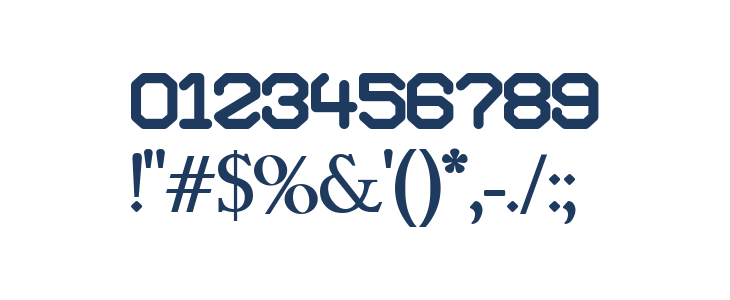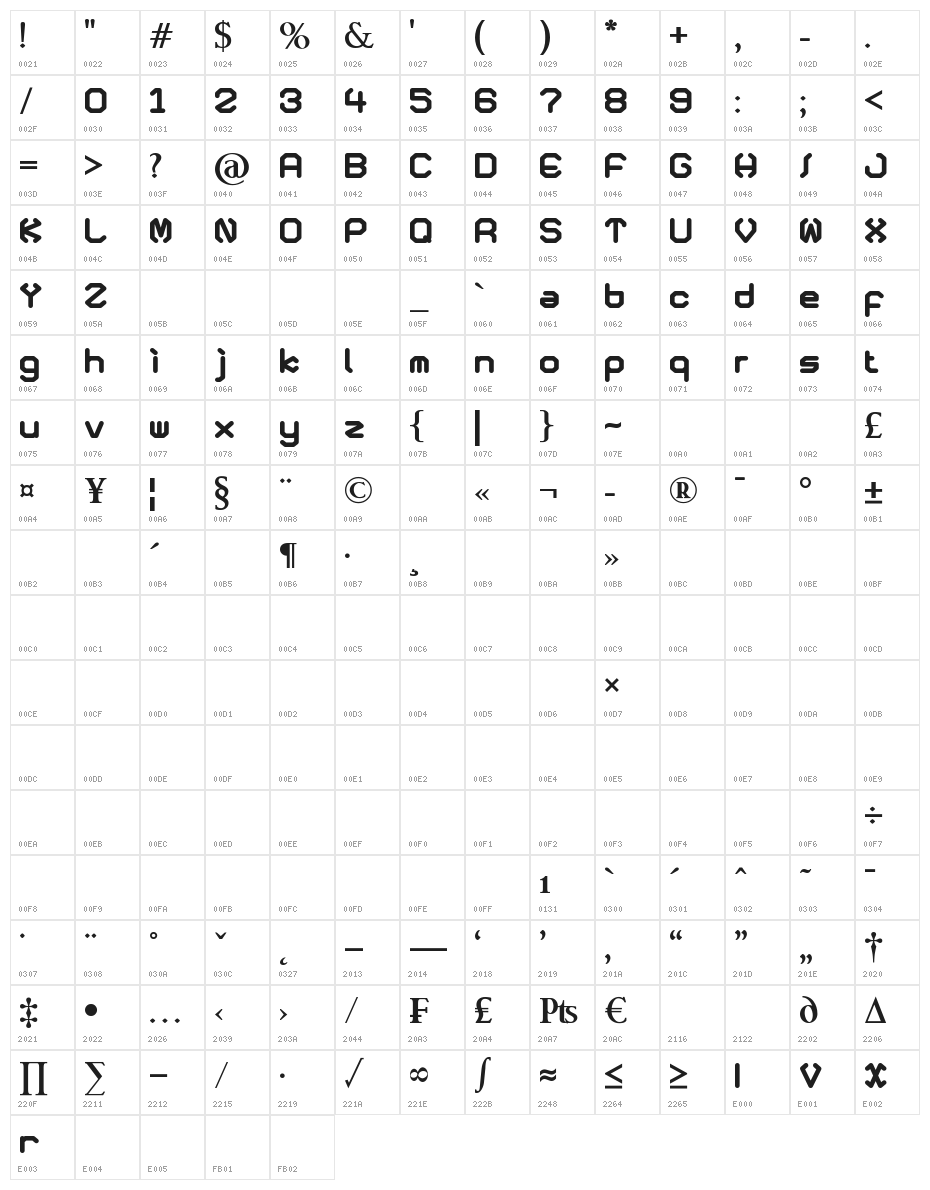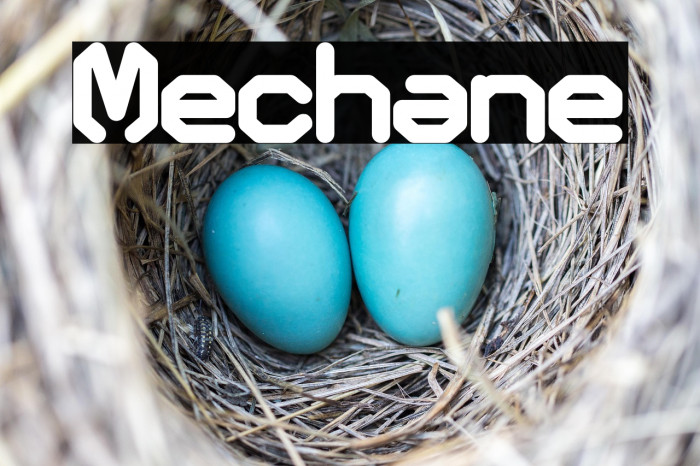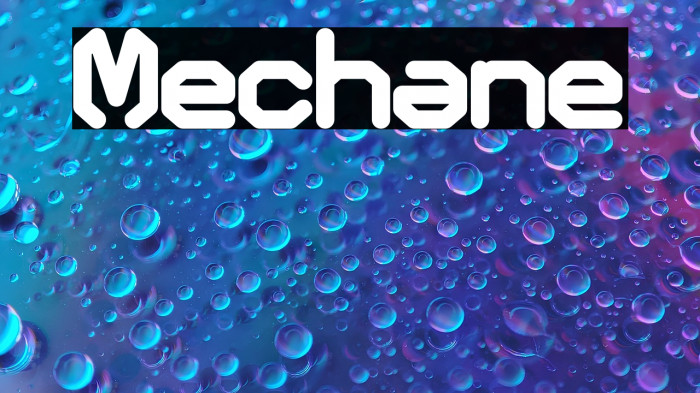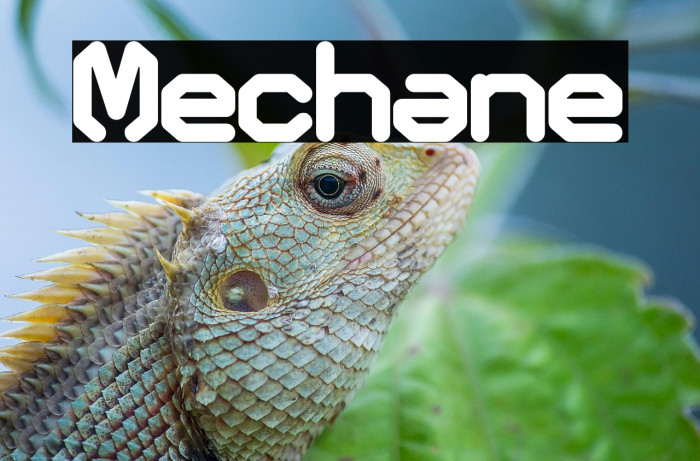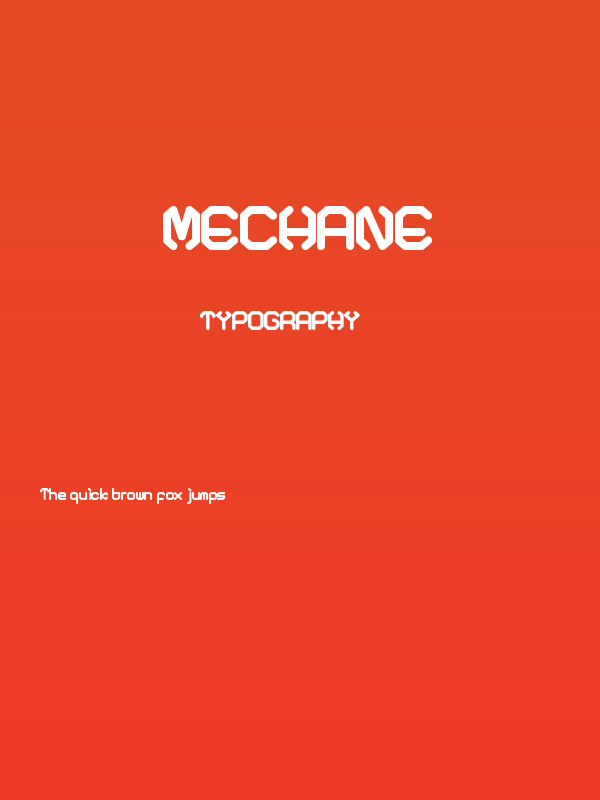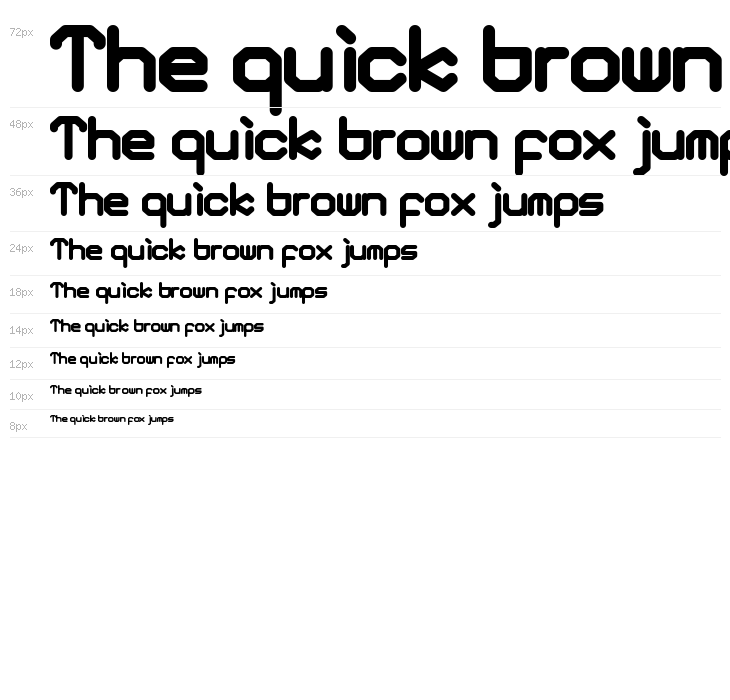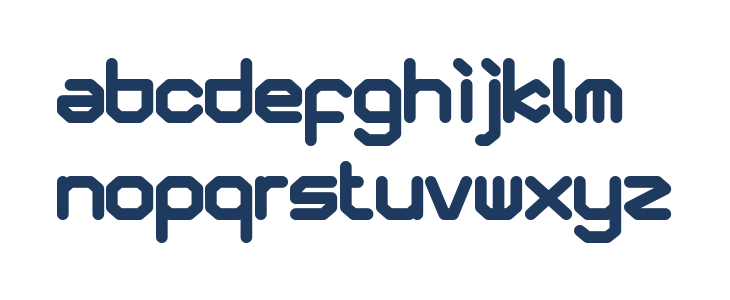
Mechane Font
Mechane Description
This font features a bold and futuristic design with geometric elements. The characters are constructed with thick, uniform strokes, giving them a strong and mechanical appearance. The angular shapes and sharp edges contribute to a modern and industrial feel. The uppercase and lowercase letters maintain a consistent style, while the numerals and special characters are designed to complement the overall aesthetic. This font's unique structure makes it stand out, ideal for projects that require a distinct and technological look.
| Overall Style | Futuristic, Industrial |
| Proposed Projects | Ideal for technology branding, video game titles, sci-fi posters, and industrial-themed designs. |